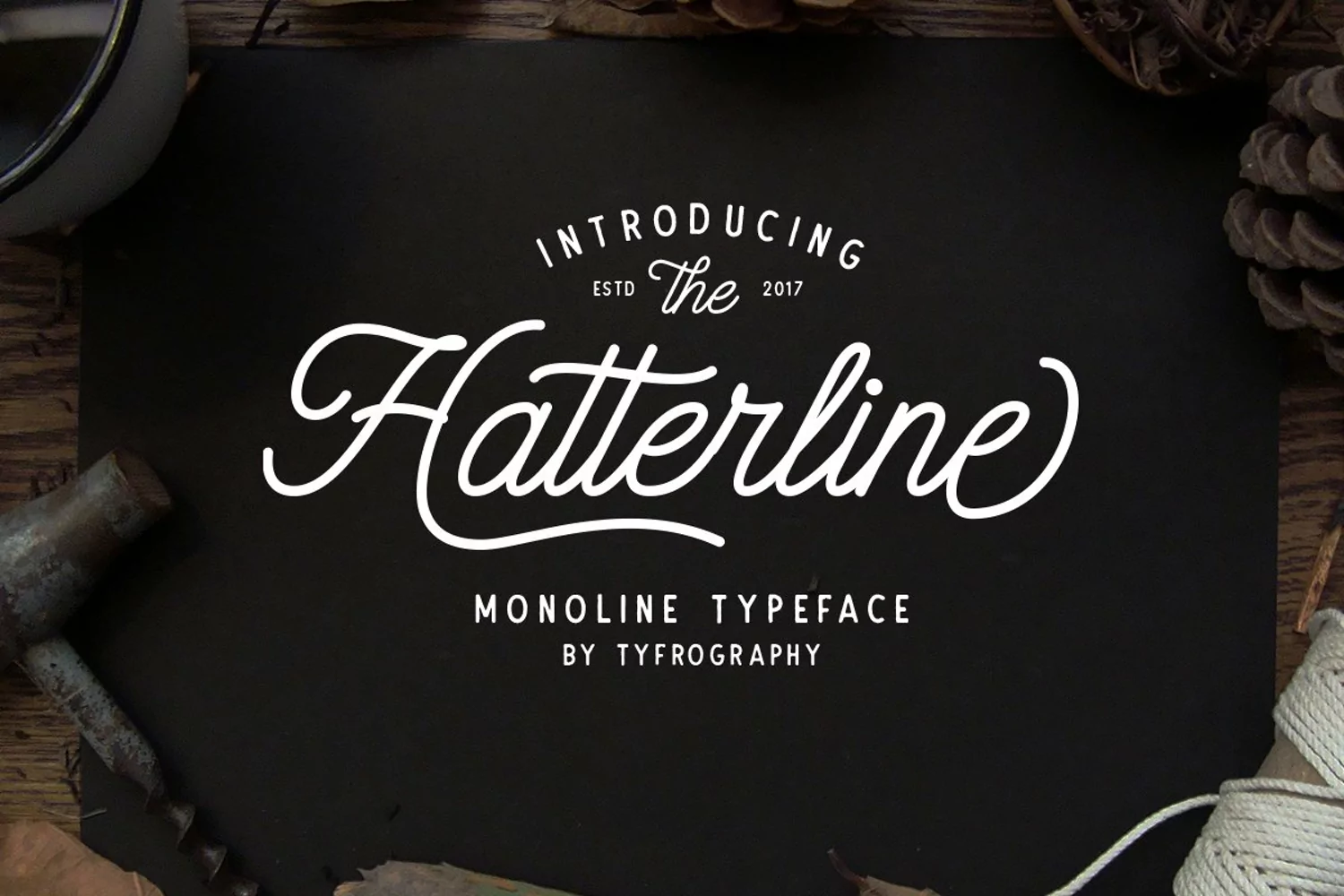
They say two are better than one....so grab two awesome fonts when you download Hatterline and the bonus sans serif font included for free. Hatterline is an incredible monoline vintage style script font that works incredibly well for so many different projects and designs. This font also has 350+ glyph options. WHOA!